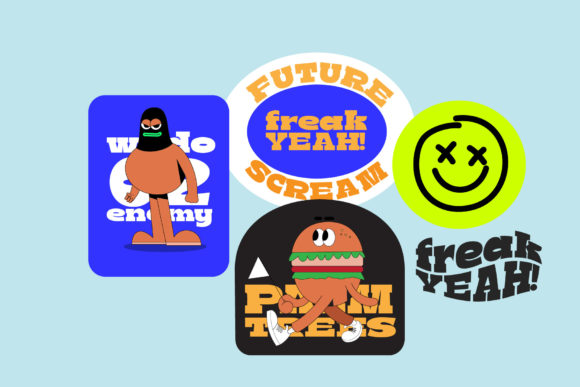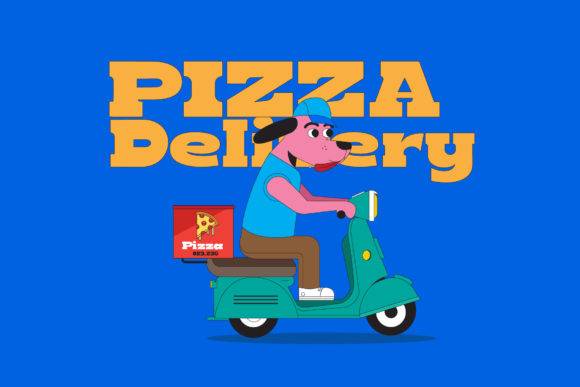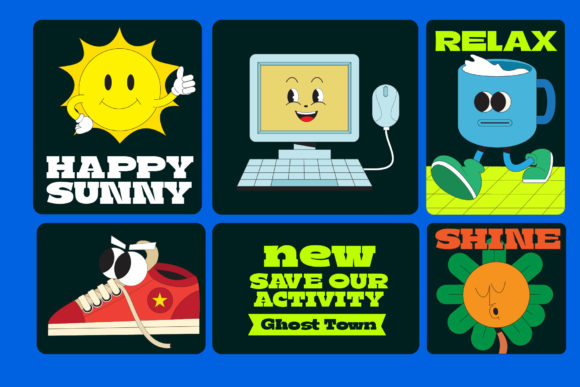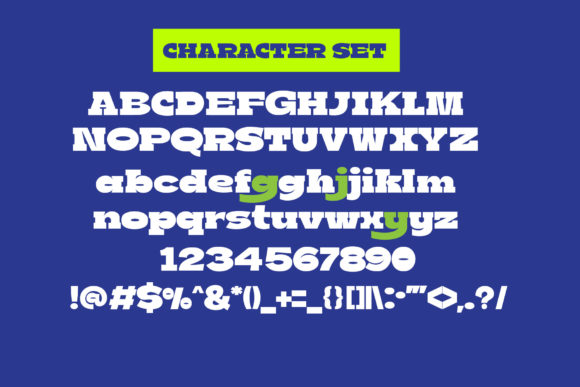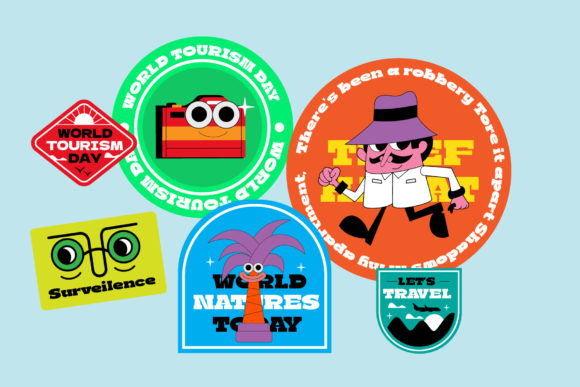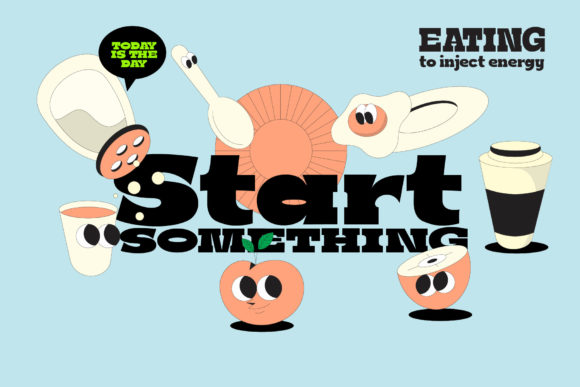
Introducing Boldie Font: The Ultimate Choice for Playful and Fun Designs
Are you a designer or crafter looking for a font that can add a touch of playfulness and fun to your creations? Look no further than Boldie Font! This bold, playful, and fun slab serif font is perfect for cartoon-related designs, children’s games, and any project that requires a lovely touch.
What is Boldie Font?
Boldie Font is a unique and eye-catching font that is designed to make your designs stand out. Its bold and chunky letters are perfect for creating attention-grabbing headlines, titles, and text that will leave a lasting impression on your audience. The font’s playful and fun vibe makes it ideal for designs that require a touch of whimsy and personality.
Key Features of Boldie Font
- Bold and Chunky Letters: Boldie Font features bold and chunky letters that are perfect for creating attention-grabbing text.
- Playful and Fun Vibe: The font’s playful and fun vibe makes it ideal for designs that require a touch of whimsy and personality.
- Slab Serif Design: Boldie Font is a slab serif font, which gives it a unique and distinctive look.
- Easy to Read: Despite its bold design, Boldie Font is easy to read, making it perfect for use in a variety of designs.
Use Cases for Boldie Font
Boldie Font is a versatile font that can be used in a variety of designs, including:
- Cartoon-Related Designs: Boldie Font is perfect for cartoon-related designs, such as animated movies, TV shows, and comics.
- Children’s Games: The font’s playful and fun vibe makes it ideal for children’s games, apps, and educational materials.
- Posters and Flyers: Boldie Font can be used to create eye-catching posters and flyers for events, promotions, and products.
- Social Media Graphics: The font’s bold and playful design makes it perfect for social media graphics, such as Facebook posts, Instagram stories, and Twitter headers.
Why Choose Boldie Font?
There are many reasons why you should choose Boldie Font for your next design project. Here are a few:
- Unique and Eye-Catching Design: Boldie Font has a unique and eye-catching design that will make your designs stand out.
- Playful and Fun Vibe: The font’s playful and fun vibe makes it perfect for designs that require a touch of whimsy and personality.
Tips for Using Boldie Font
Here are a few tips for using Boldie Font in your designs:
- Use it for Headlines and Titles: Boldie Font is perfect for use in headlines and titles, where its bold and chunky design can really make an impact.
- Pair it with Other Fonts: Boldie Font can be paired with other fonts to create a unique and interesting design.
- Experiment with Colors: Boldie Font looks great in a variety of colors, so don’t be afraid to experiment and find the perfect color for your design.
In conclusion, Boldie Font is a bold, playful, and fun slab serif font that is perfect for designers and crafters looking to add a touch of whimsy and personality to their creations. Its unique and eye-catching design, playful and fun vibe, and ease of use make it an ideal choice for a variety of designs, from cartoon-related designs to social media graphics. So why not give Boldie Font a try and see how it can take your designs to the next level?